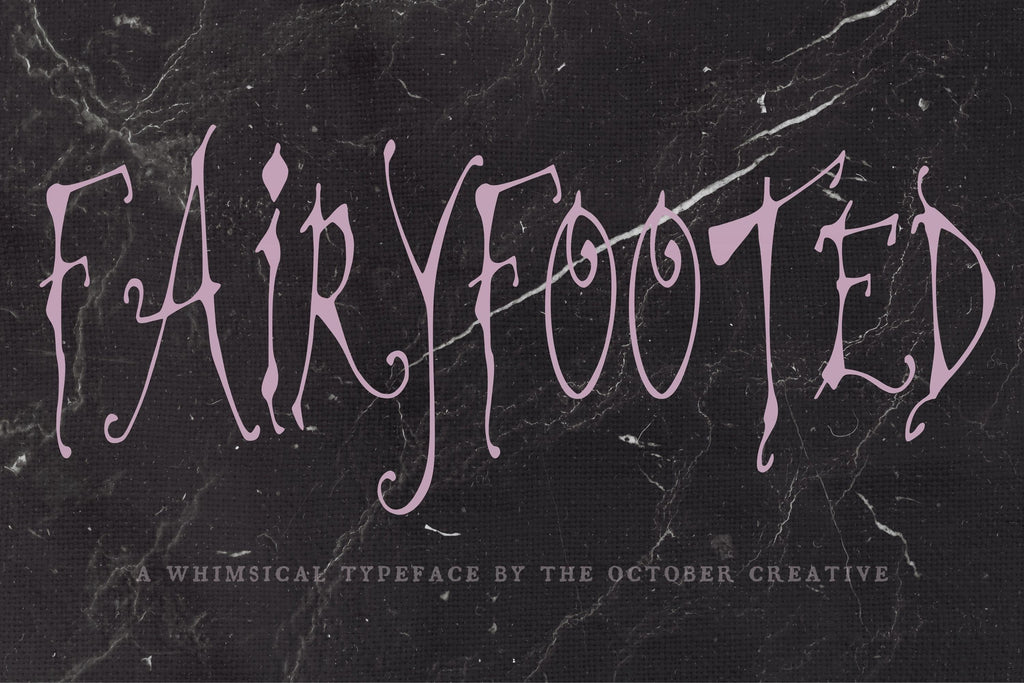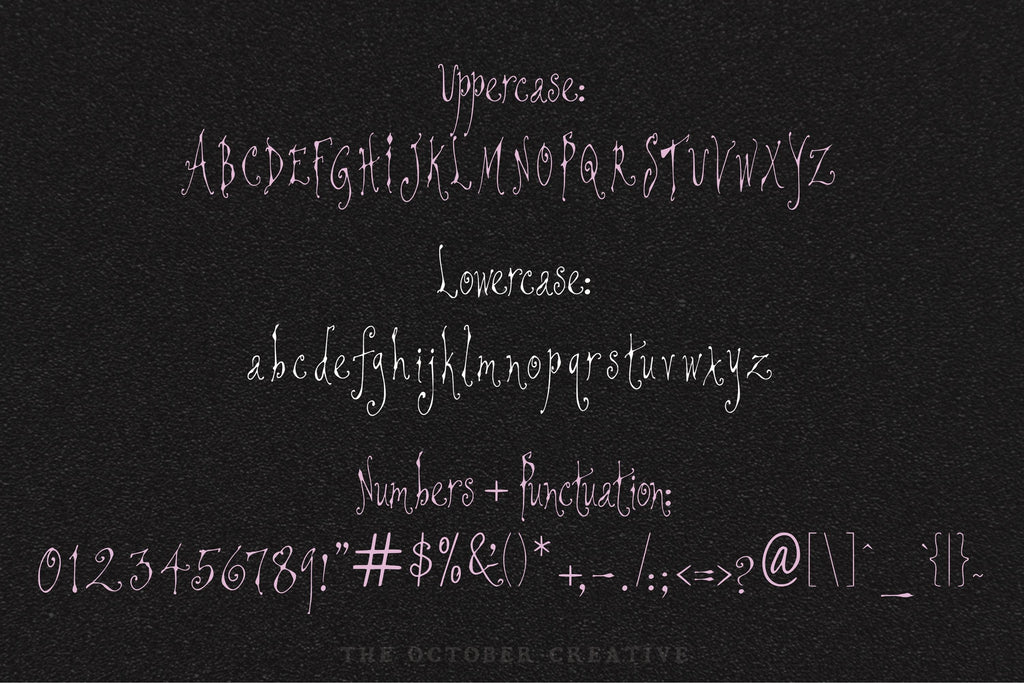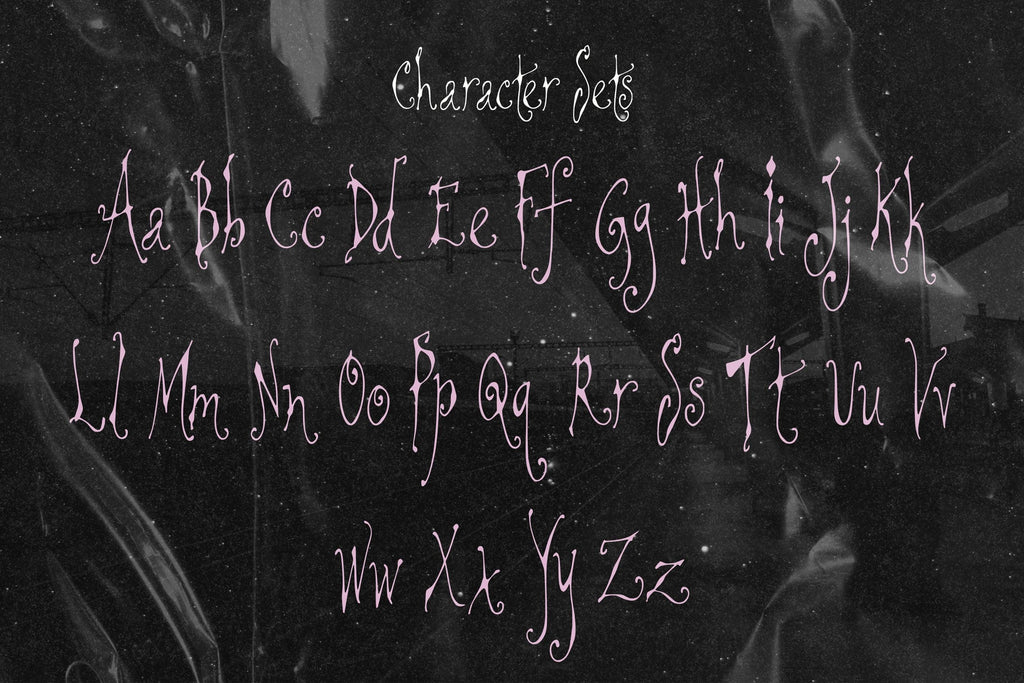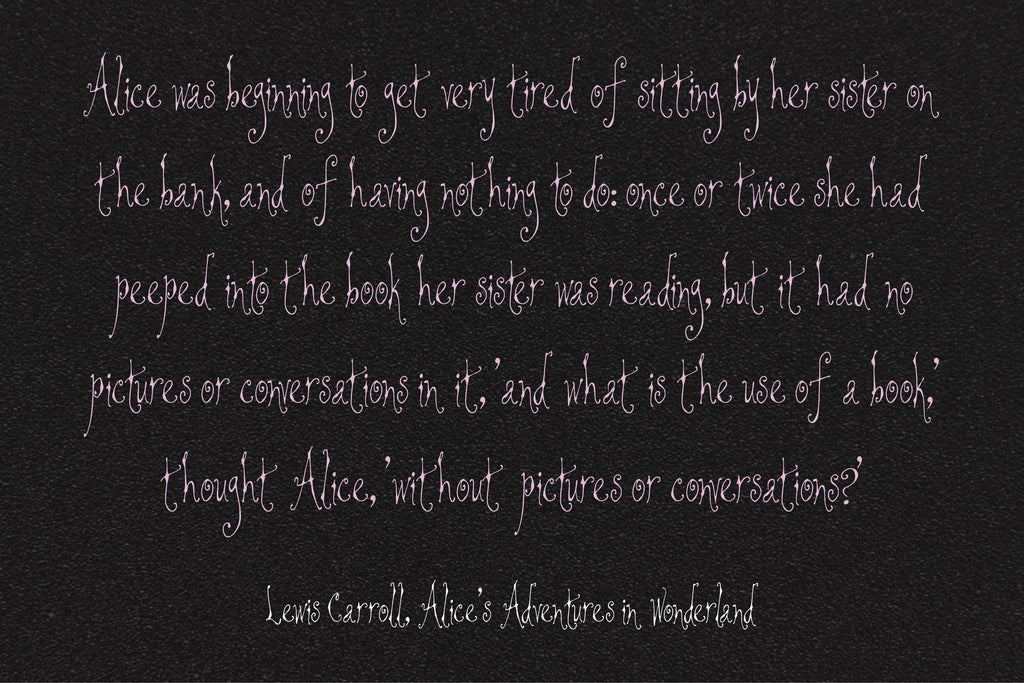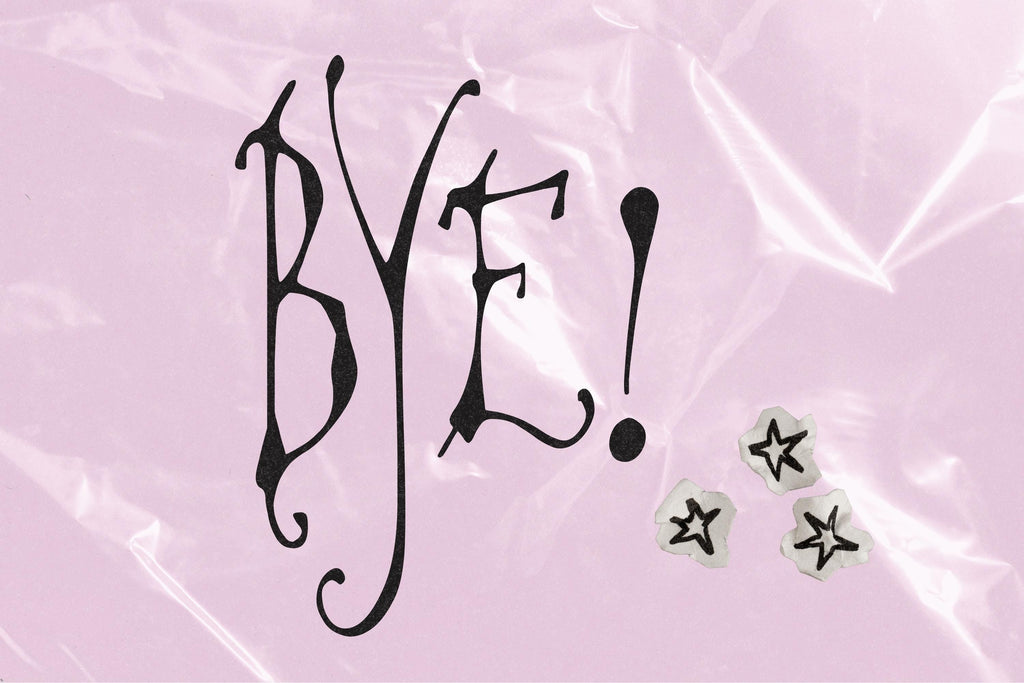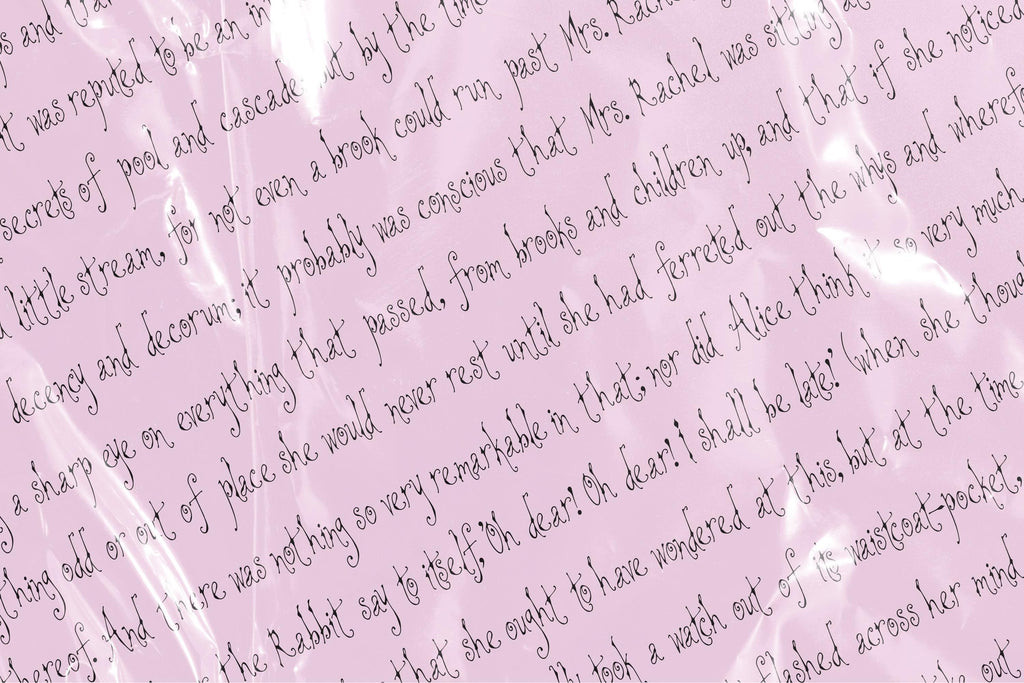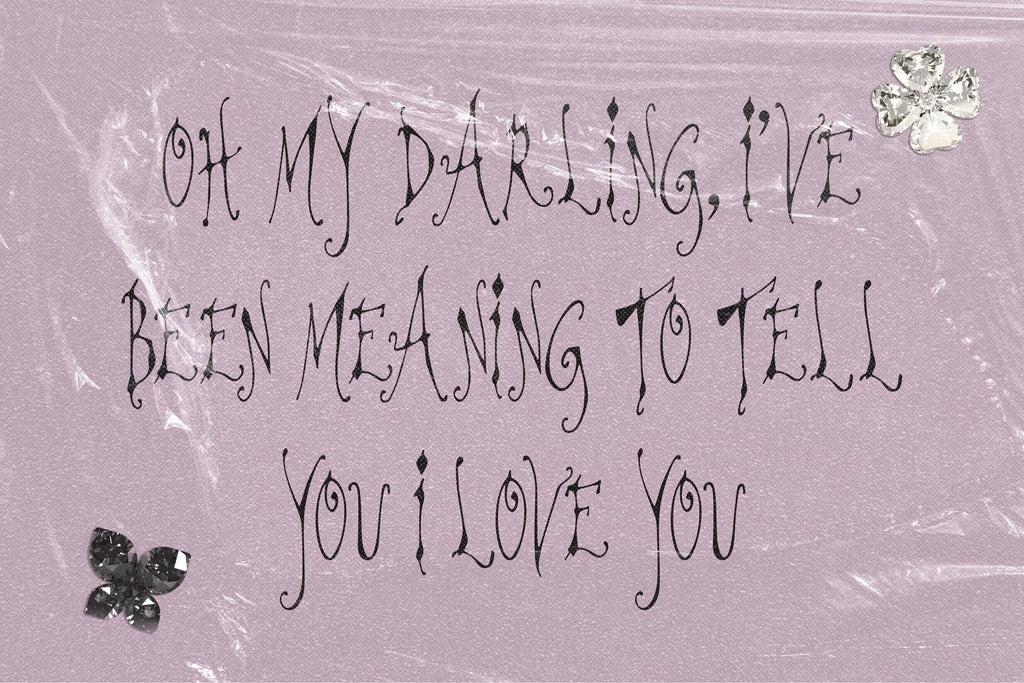
Fairyfooted Font
Fairyfooted adds delicate loops and tall, fanciful letters to nursery prints, storybook titles, and birthday invitations. Its long curls trail below the words, a lovely little detail for a child's name or a favorite line from a fairy tale.